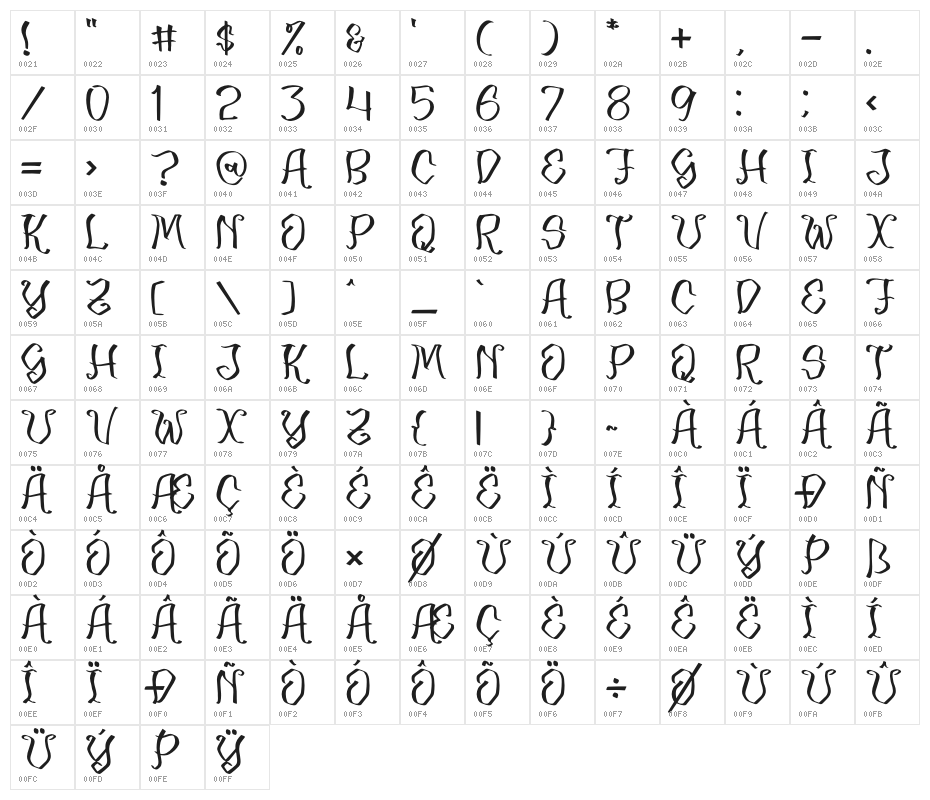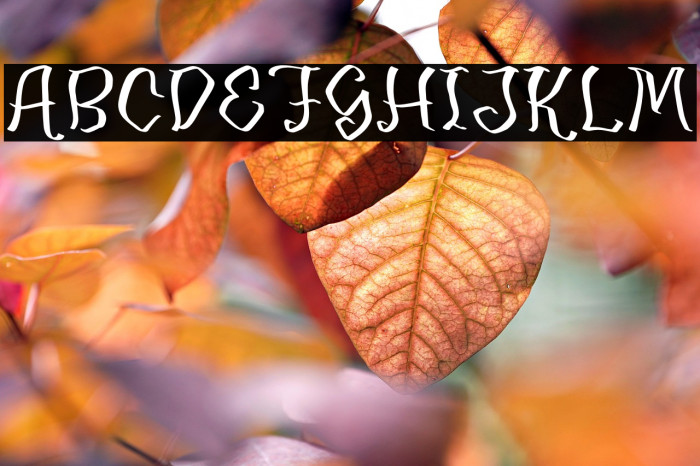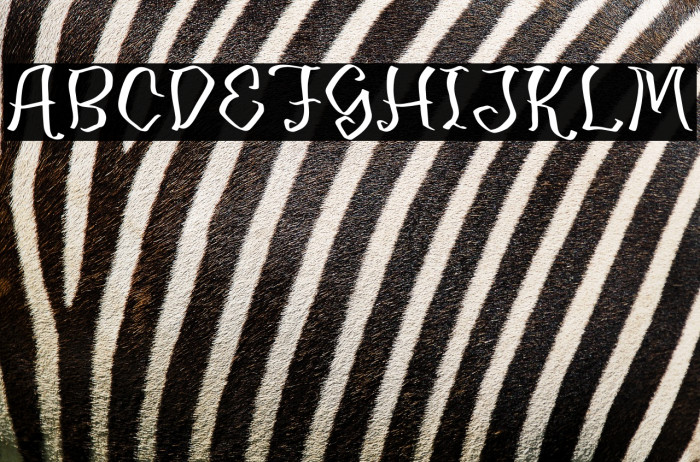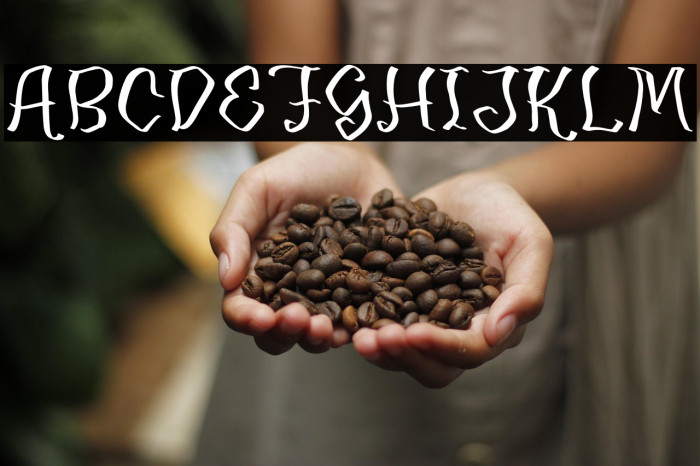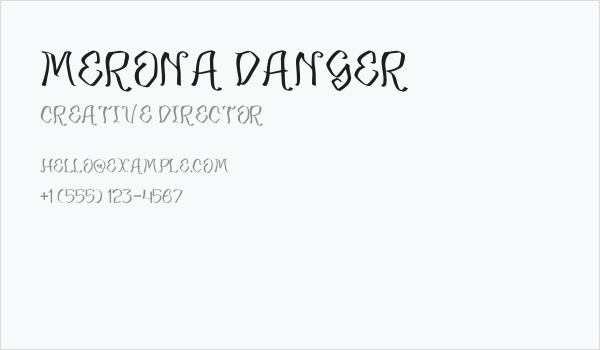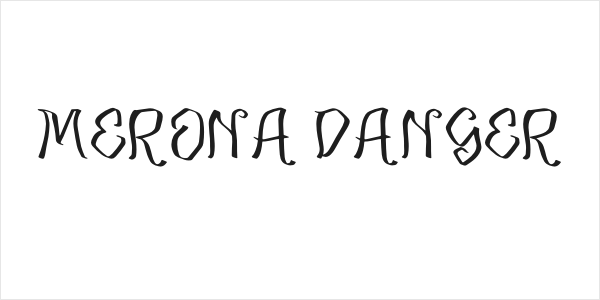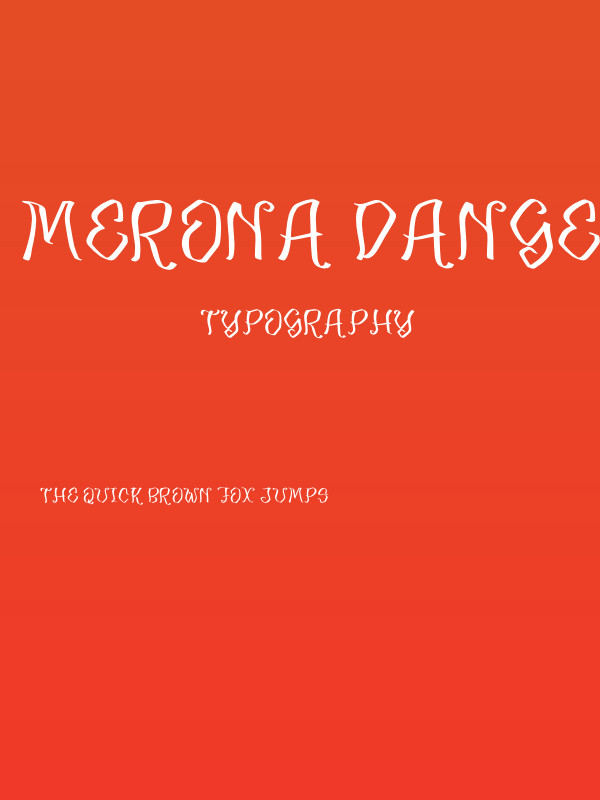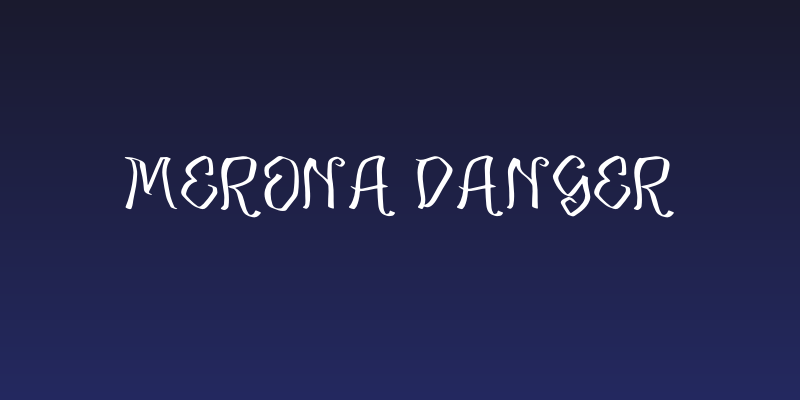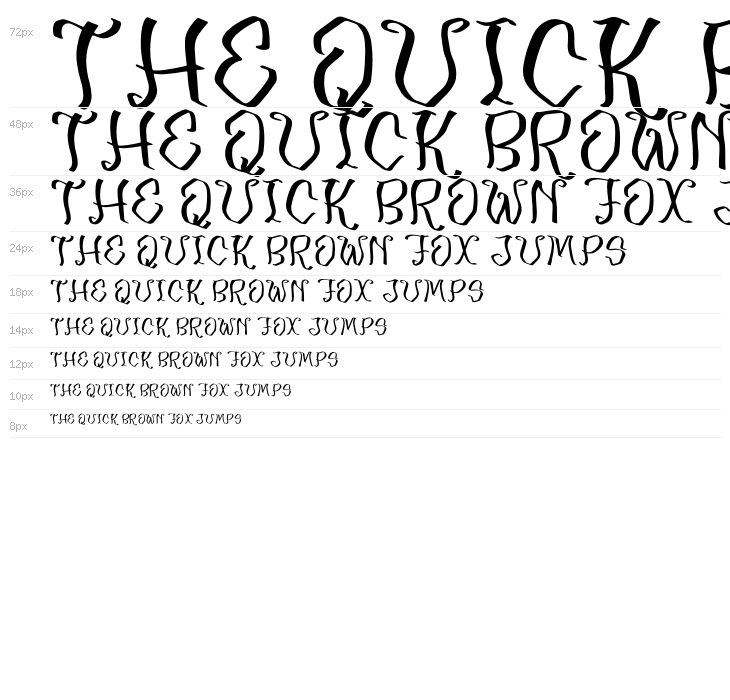
Merona Danger Font
Merona Danger Description
This font features a dynamic and edgy design with a handwritten style that incorporates sharp angles and fluid curves. The uppercase and lowercase letters maintain a consistent flow, giving the font a cohesive look. Numbers and special characters are crafted with the same attention to detail, ensuring they blend seamlessly with the alphabet. The overall appearance is bold and expressive, making it suitable for projects that require a touch of personality and flair. The strokes vary in thickness, adding a sense of movement and energy to the text.
| Proposed Projects | Ideal for branding, posters, album covers, and any project that requires a bold, artistic touch. |